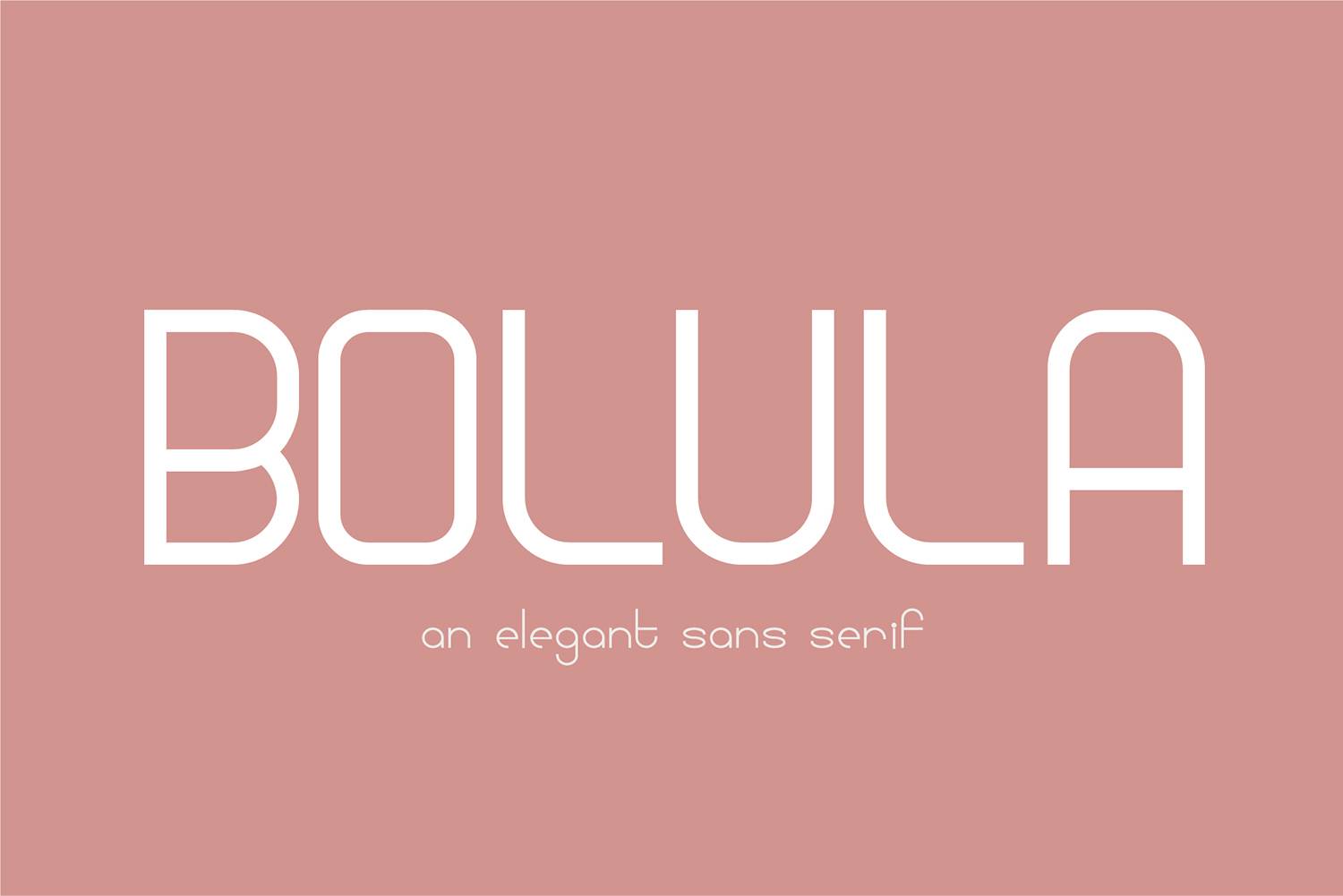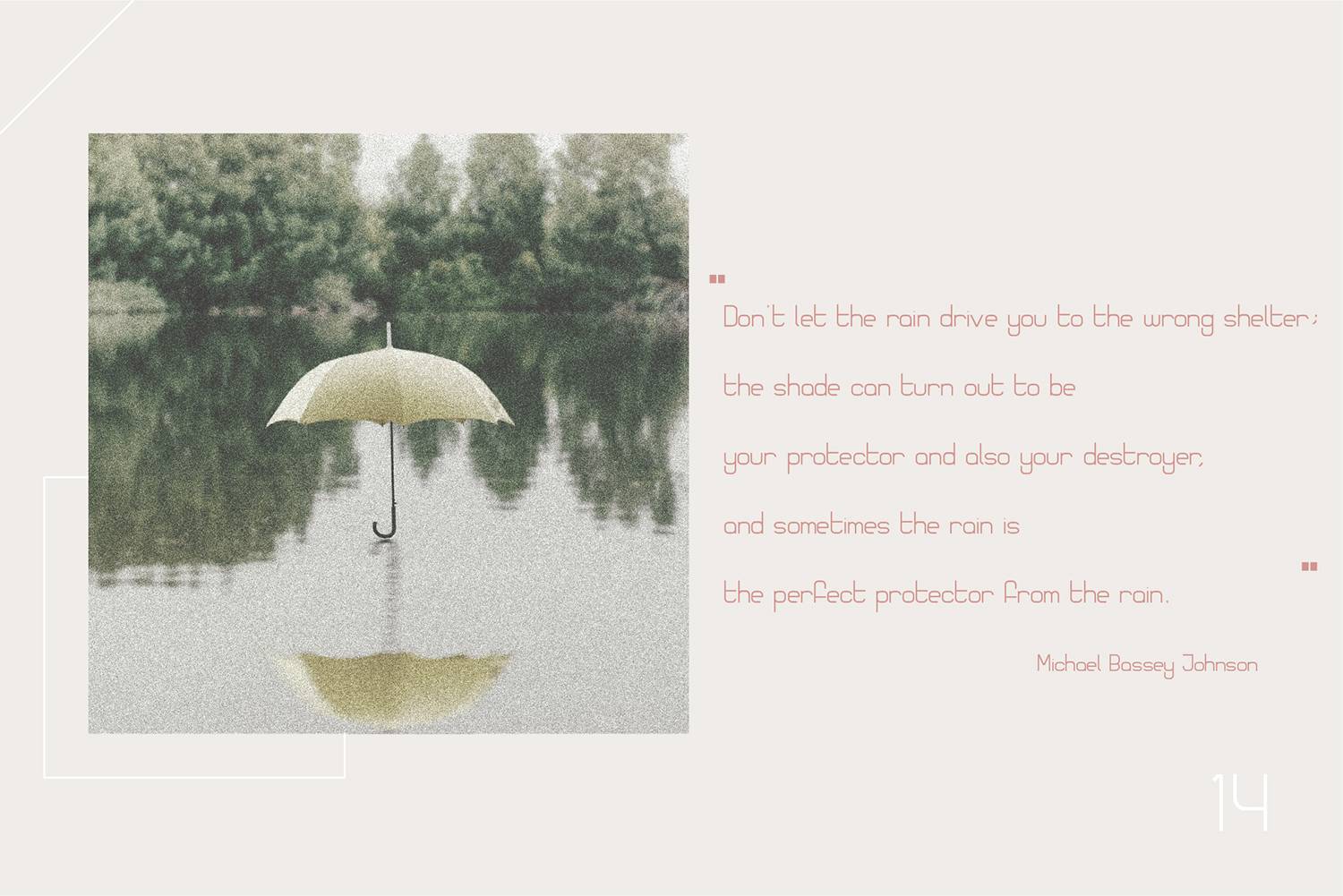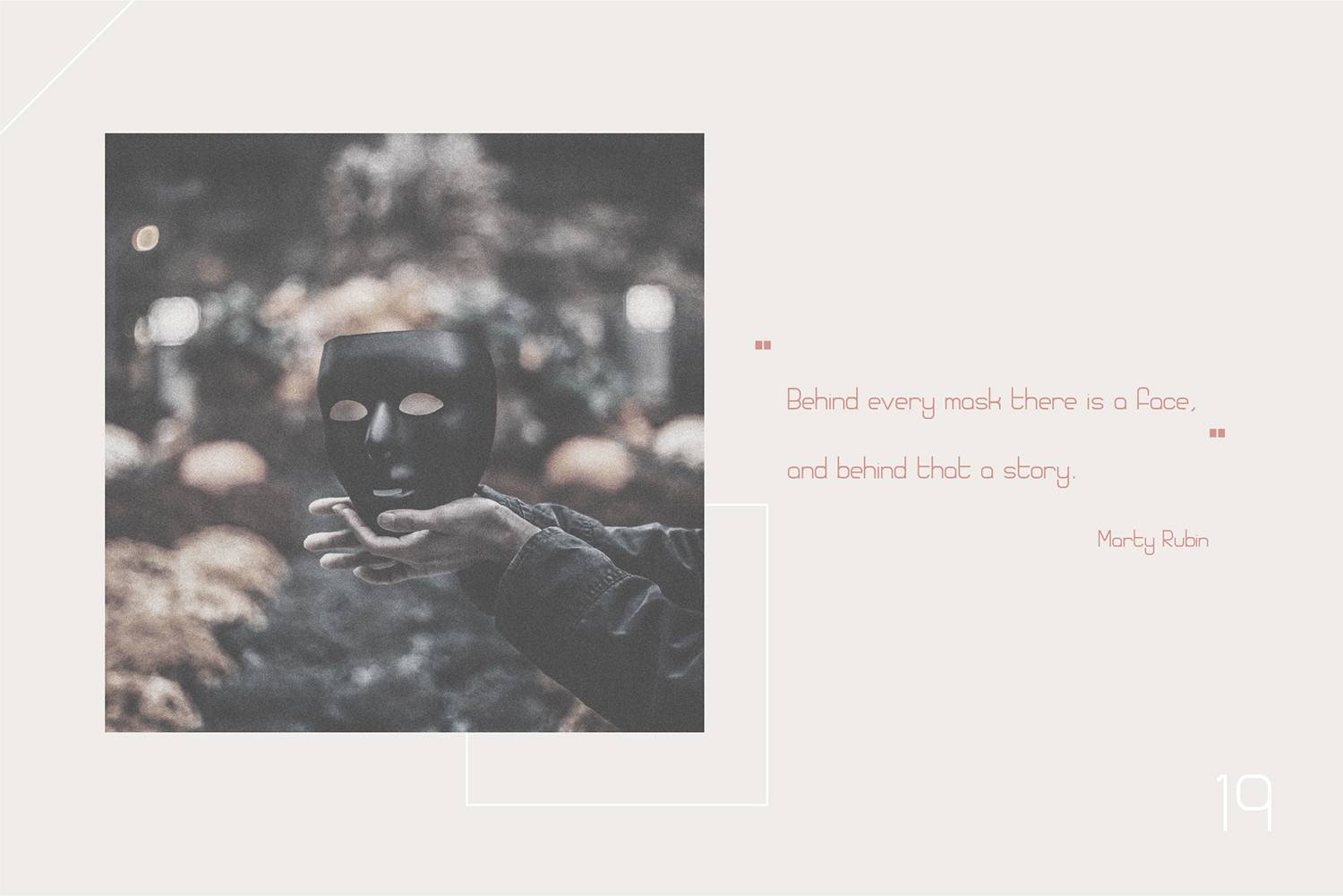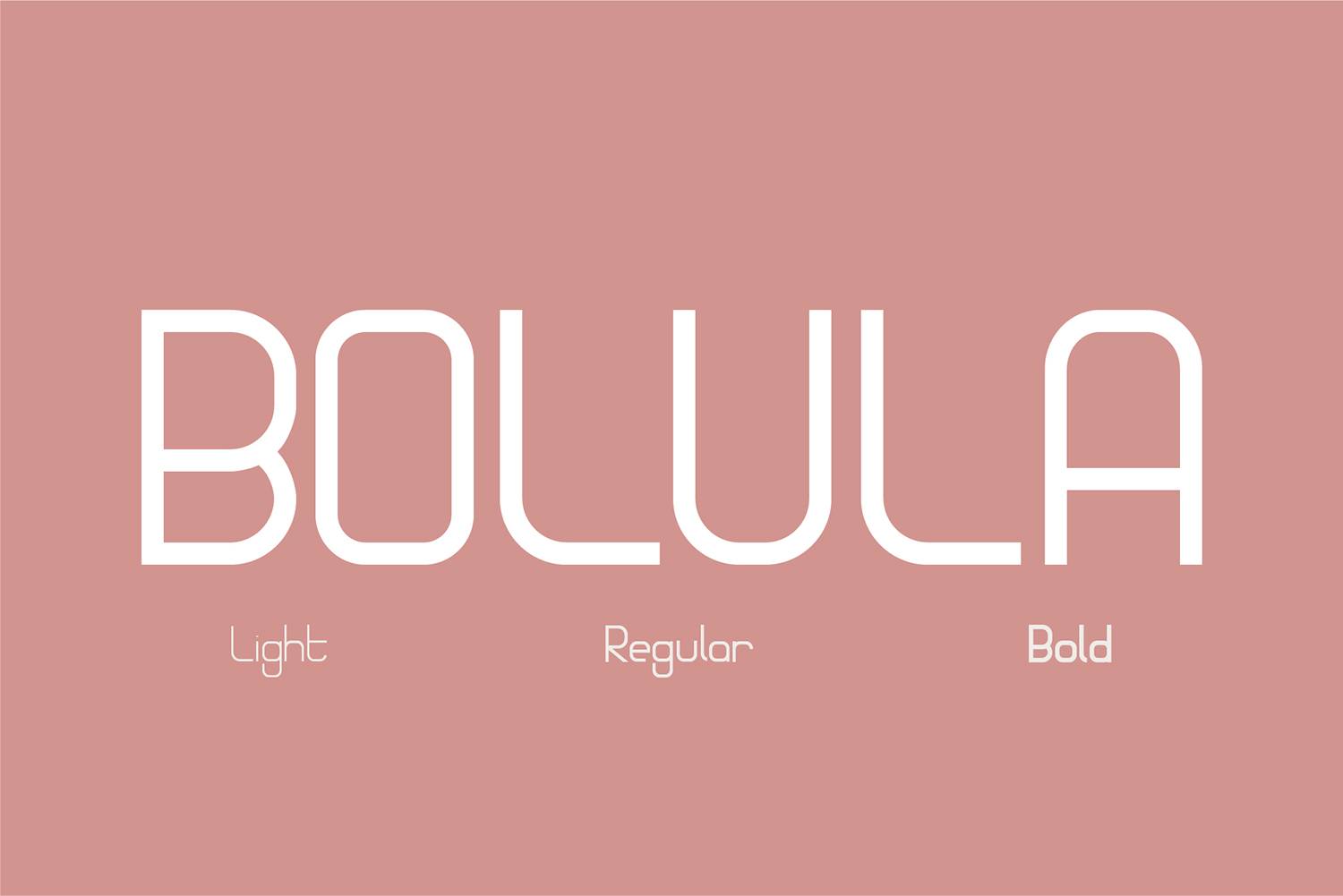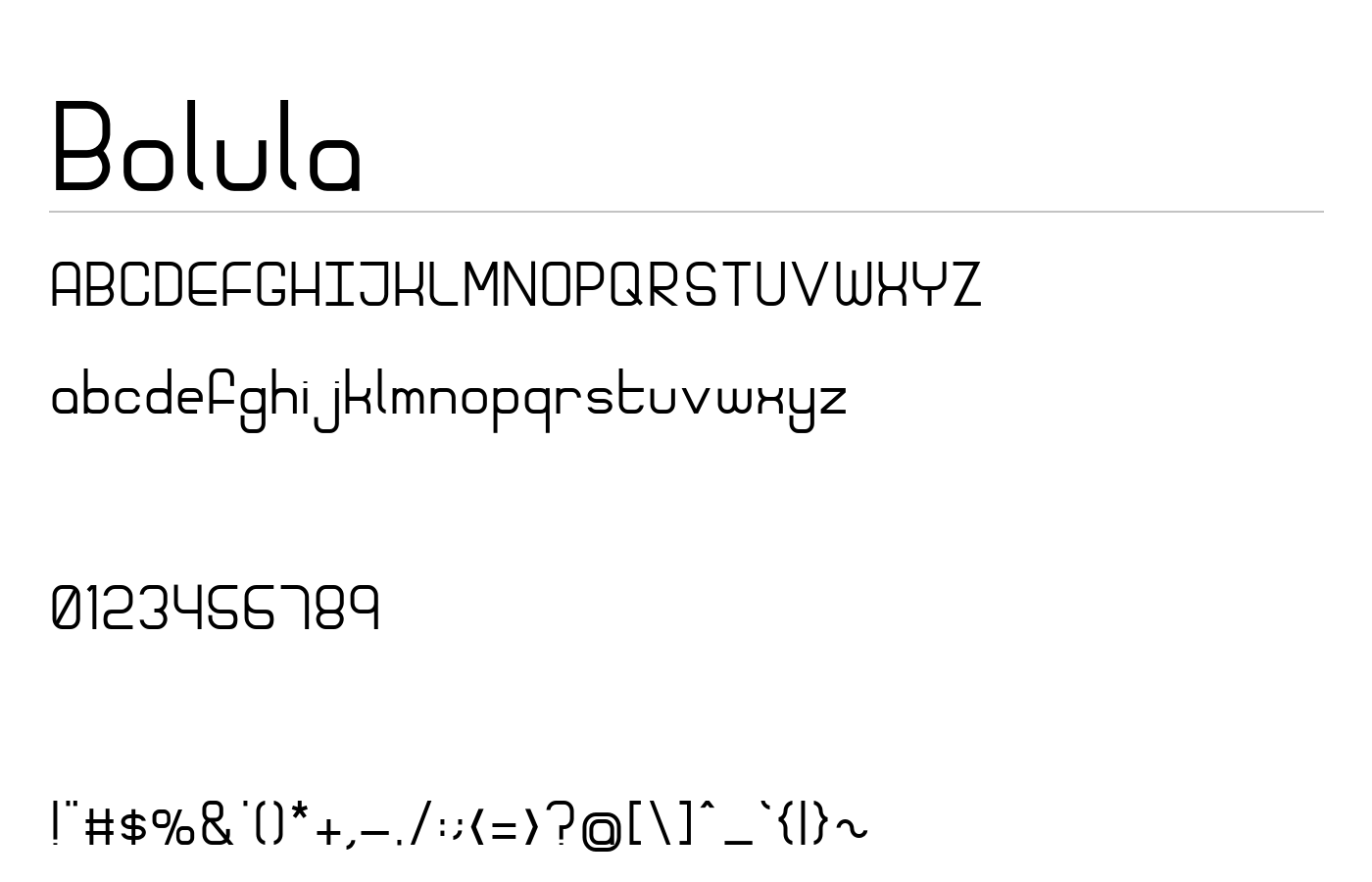
Bolula is a sleek, modern sans serif font with a narrow, condensed width and clean, geometric shapes that give it a futuristic, tech-inspired feel. Its consistent stroke weight and rounded corners create a friendly yet minimalist look, making it perfect for digital interfaces, branding, and headlines where clarity and a contemporary vibe are key. This font works well in projects that want to convey precision and modernity without feeling too stiff or cold.
Bolula Font
About Bolula Font
| Font family | Bolula Font |